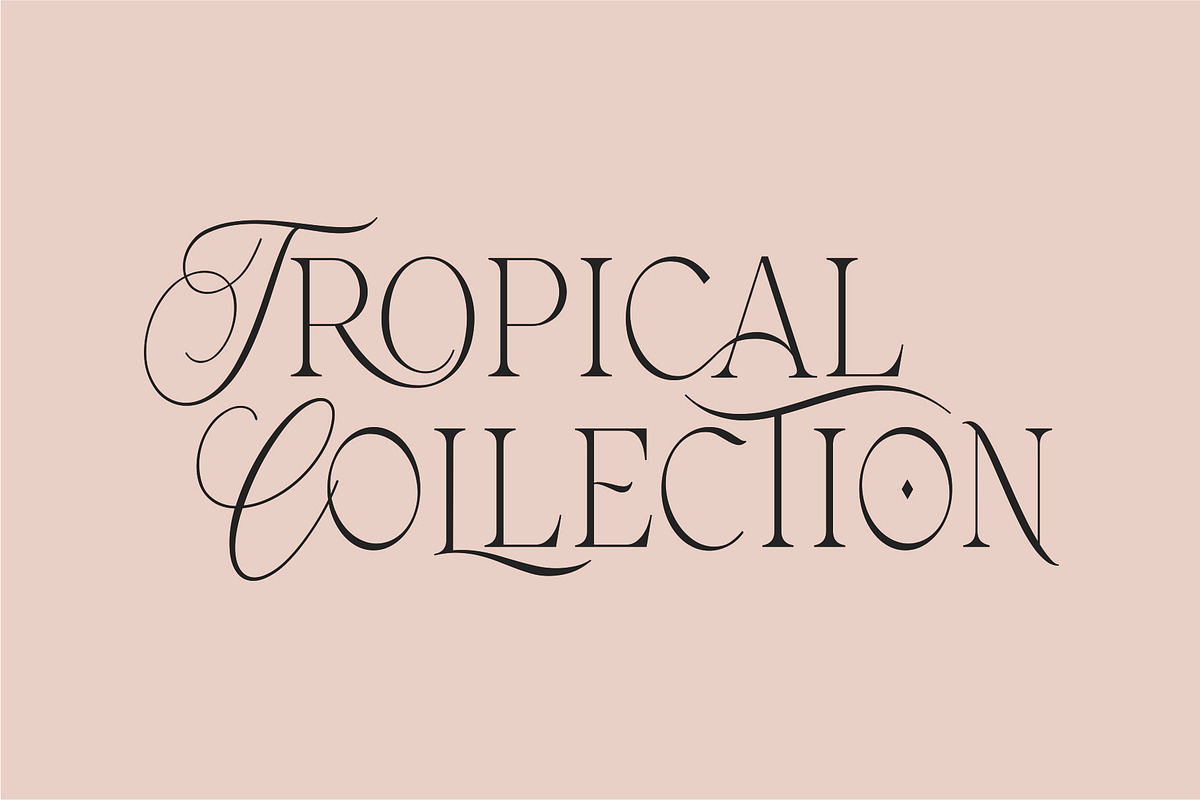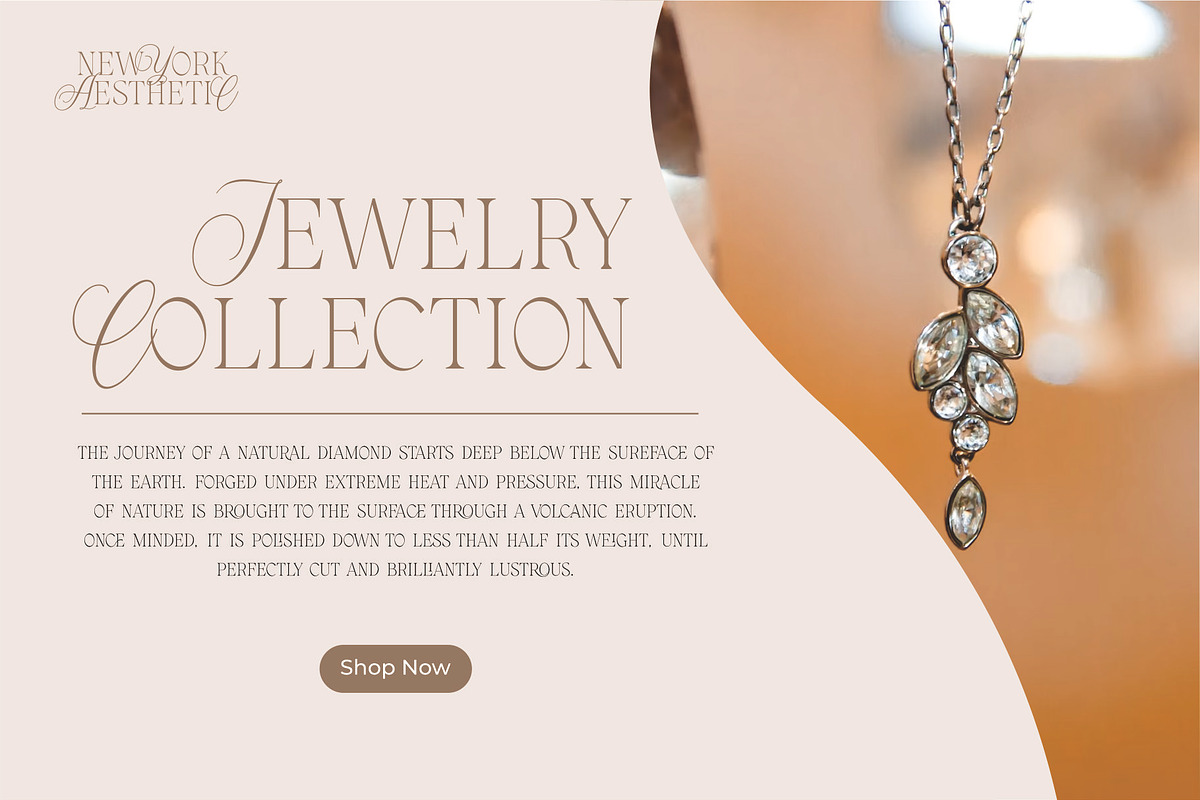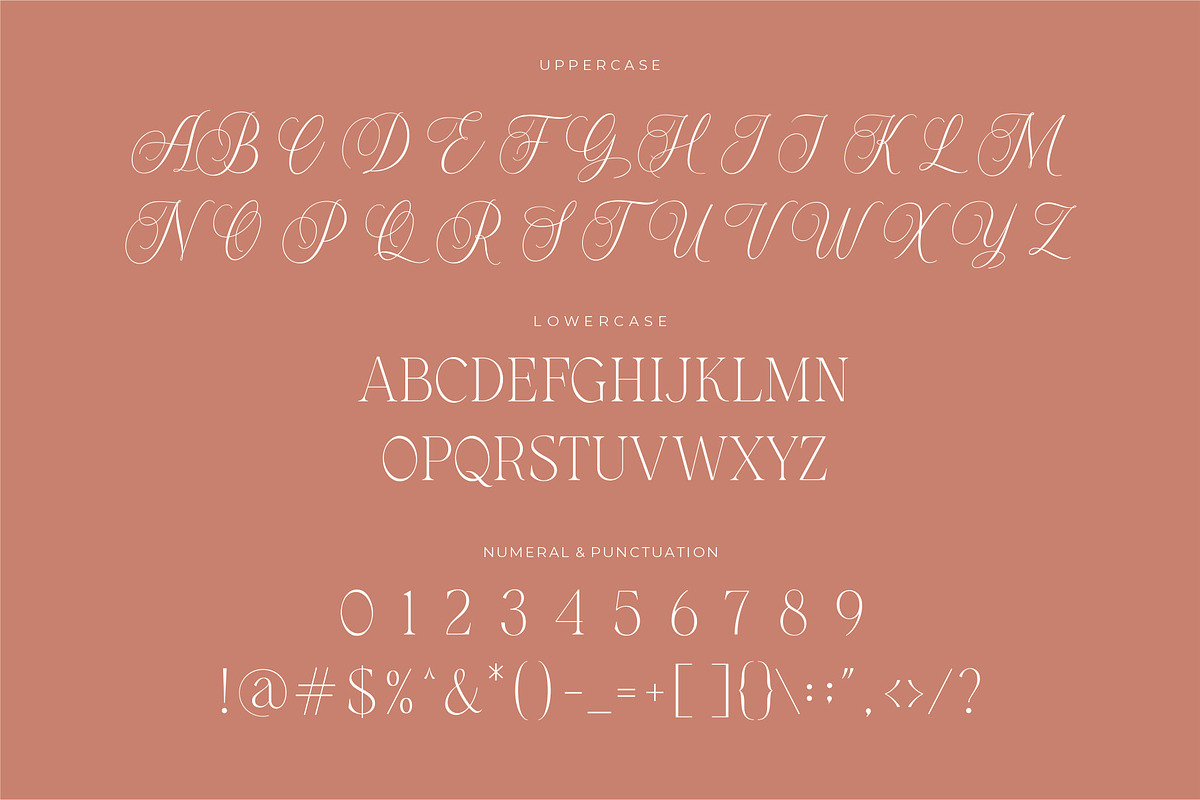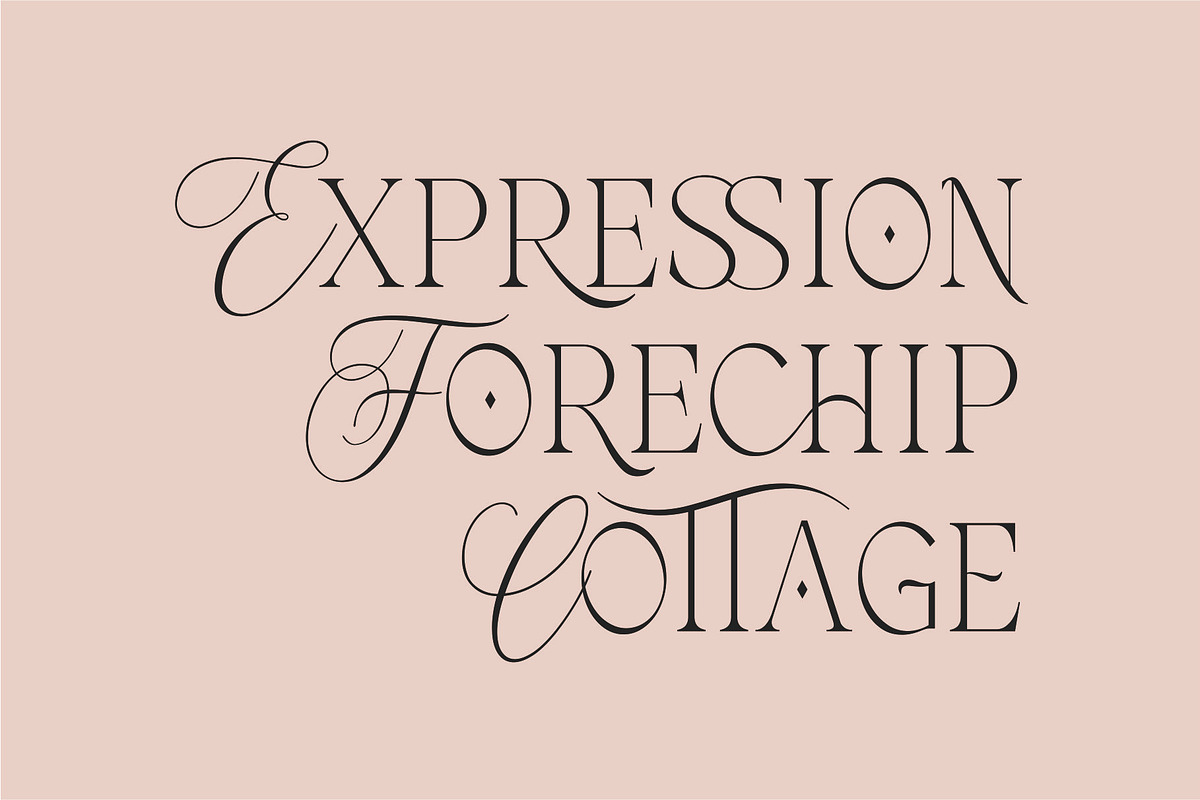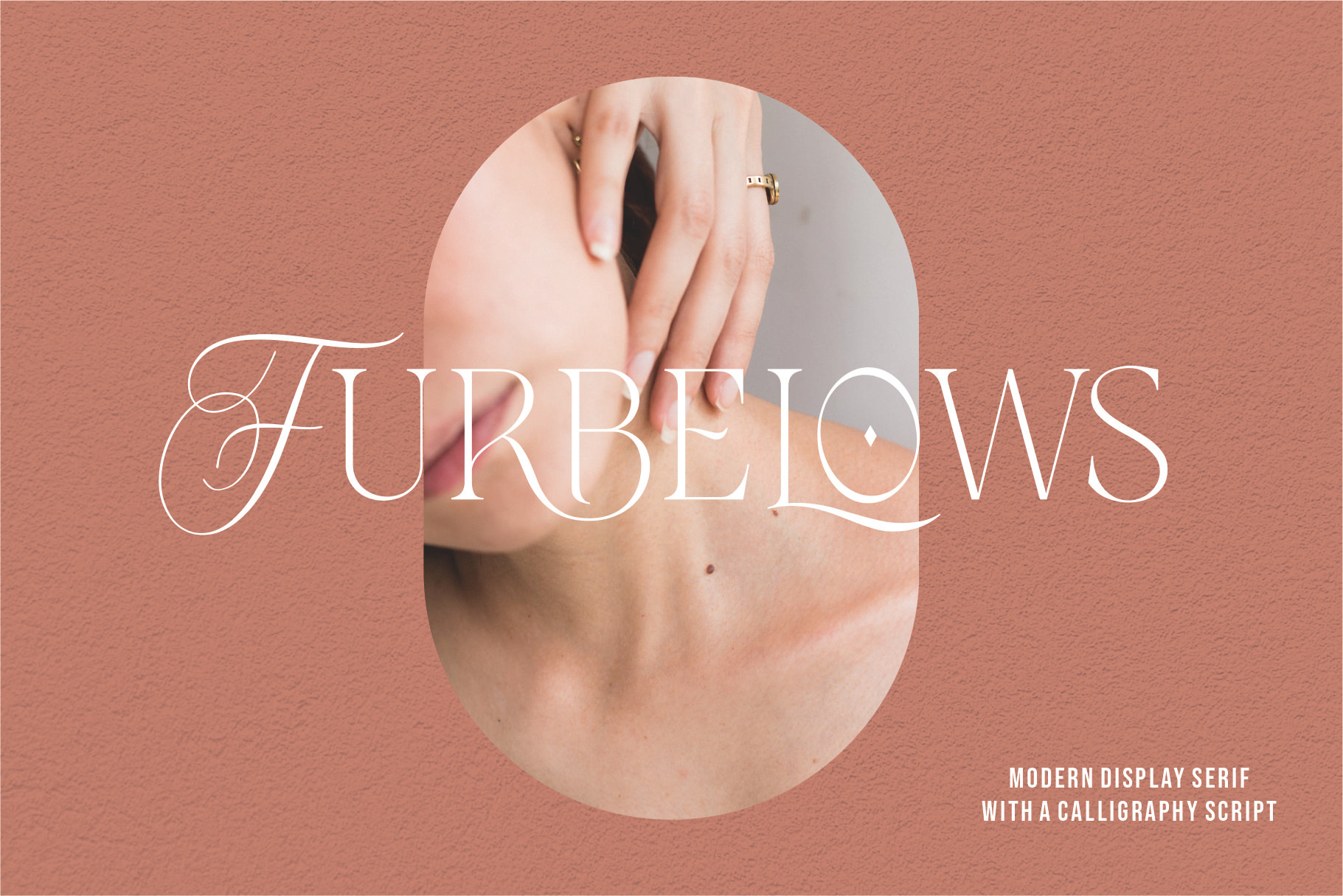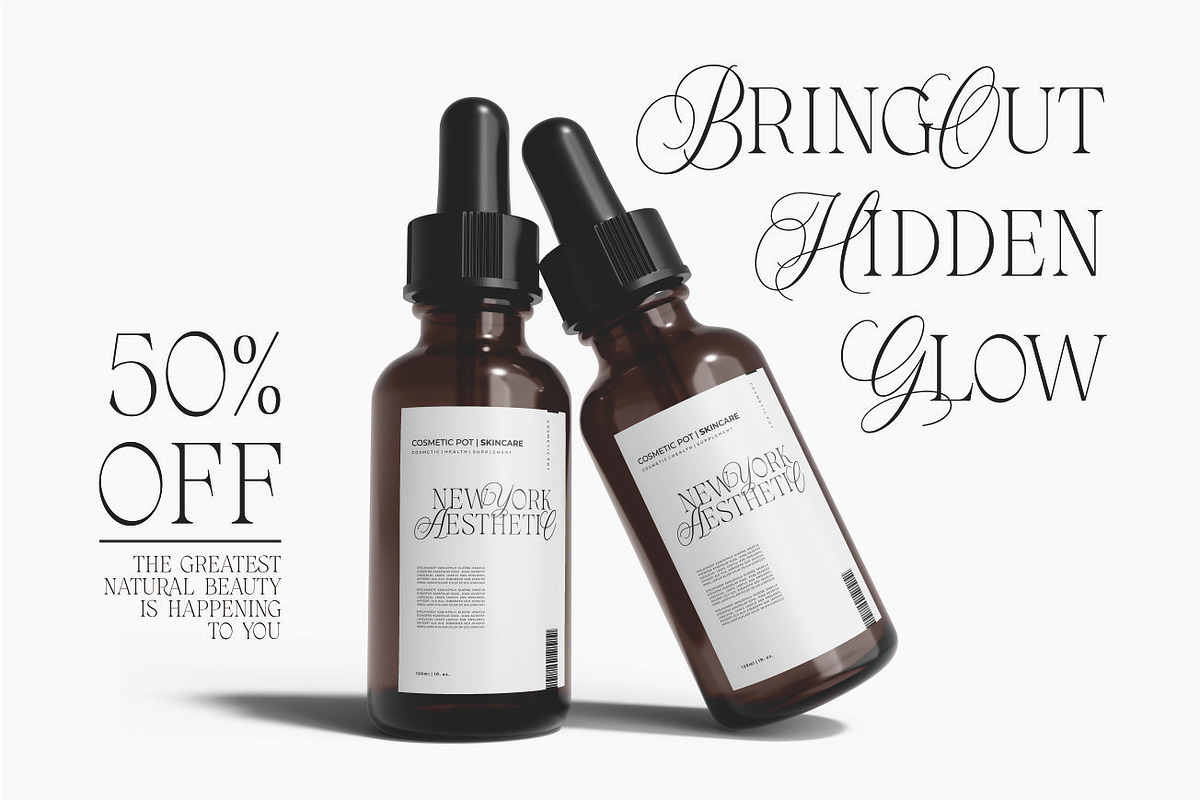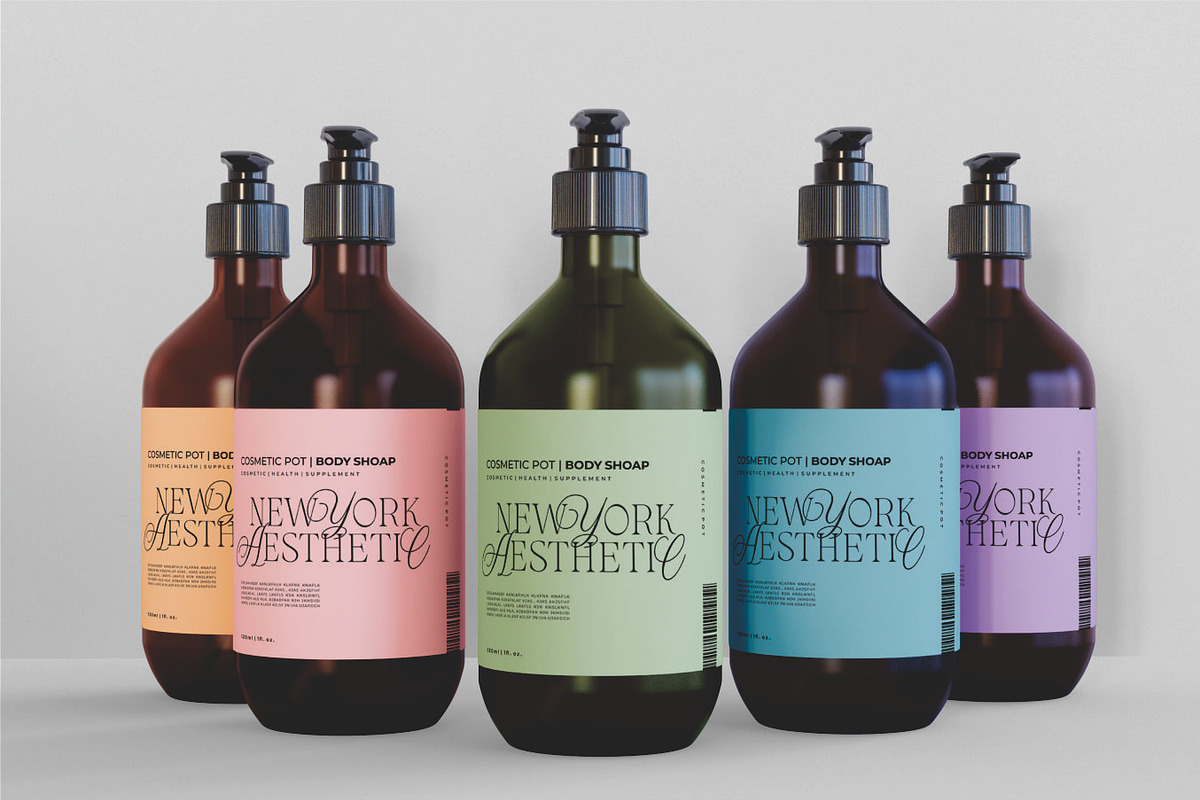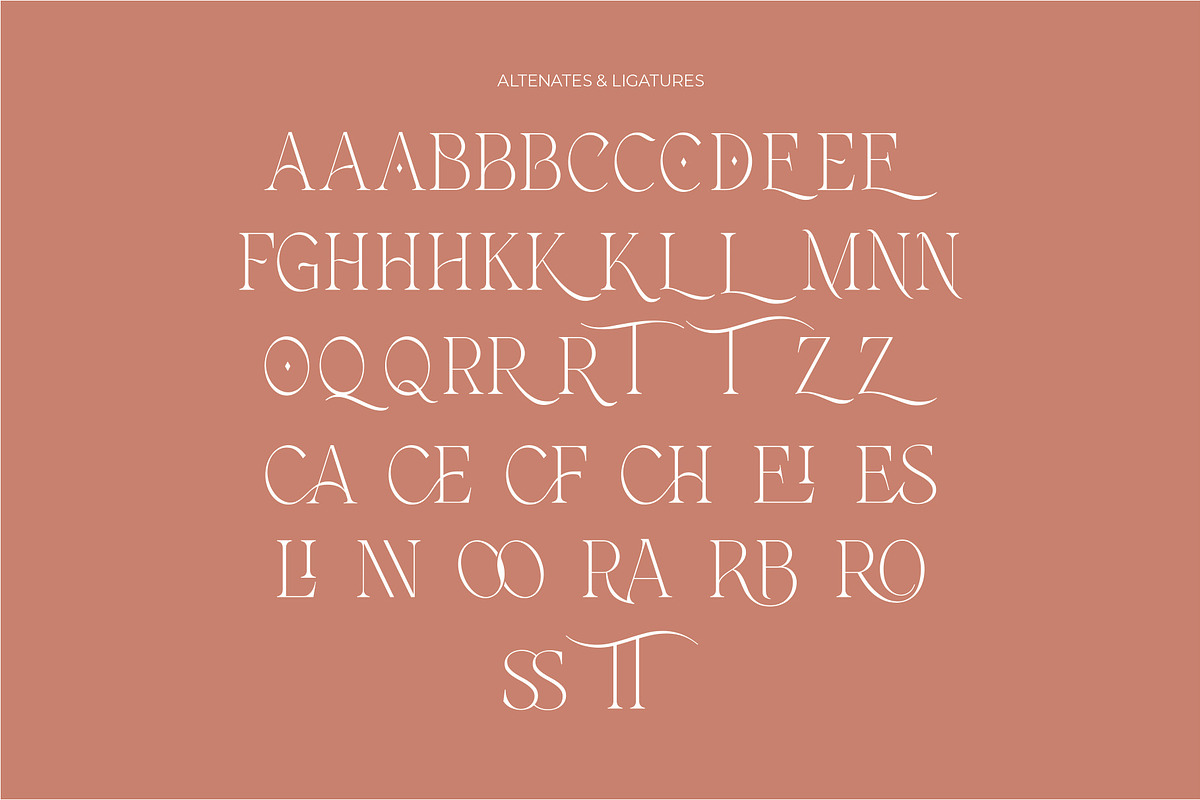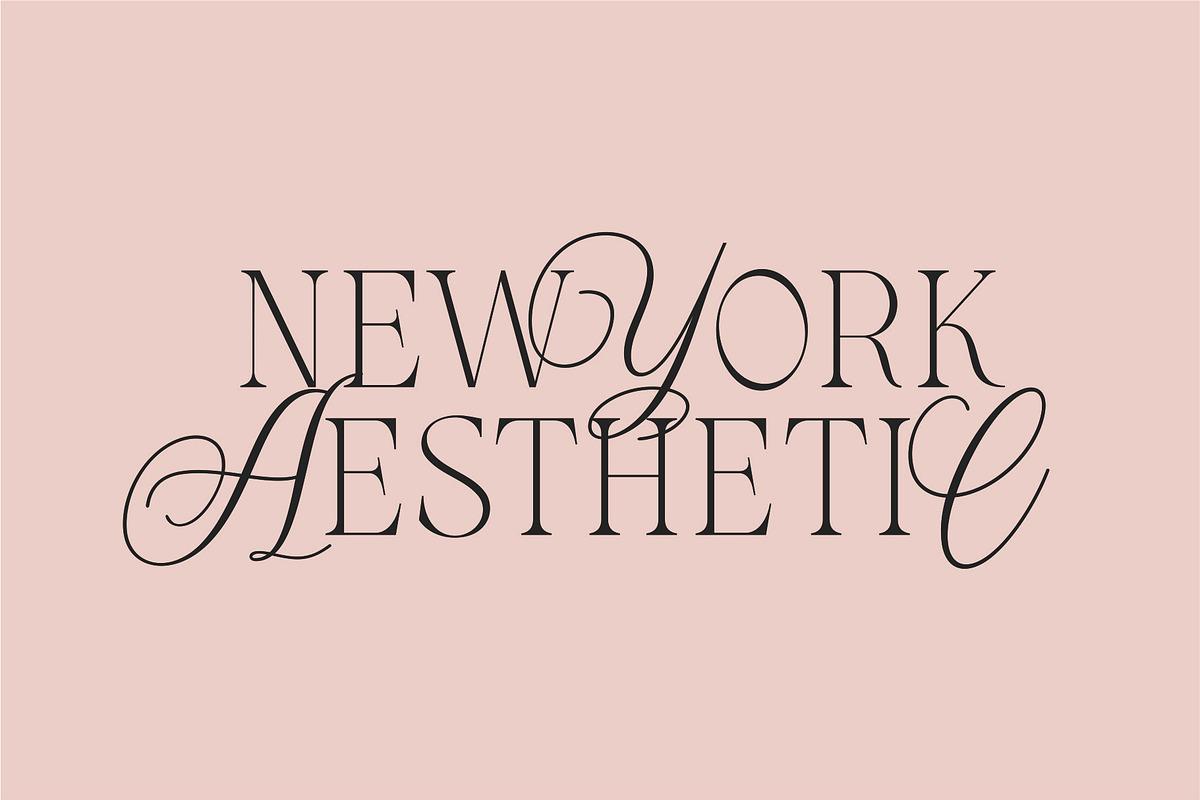
FURBELOWS - Fusion Display Typeface
Furbelows font is designed by combining an elegant script font with a simple and modern serif font style. This font has a modern serif style lowercase combined with elegant script-style uppercase letters that make the Furbelows font look different and unique.
Furbelows is perfect for magazine cover designs, brochures, flyers and so on with unique and modern concepts. besides that this font is very easy to use both in design and non-design programs because everything changes and glyphs are supported by Unicode (PUA).